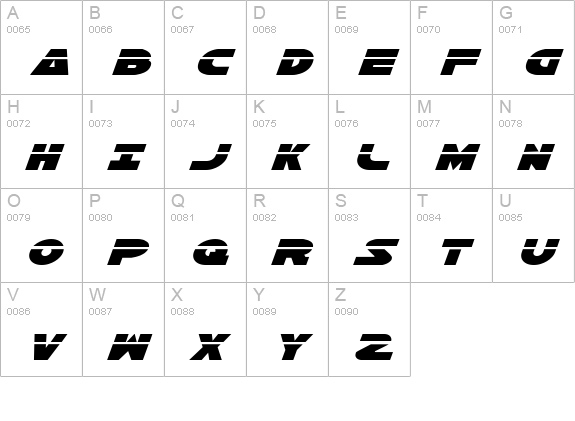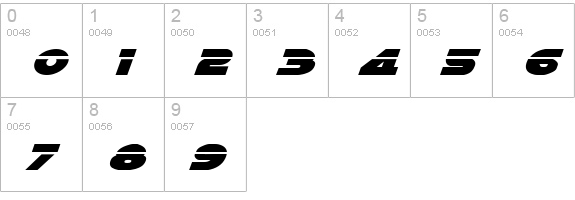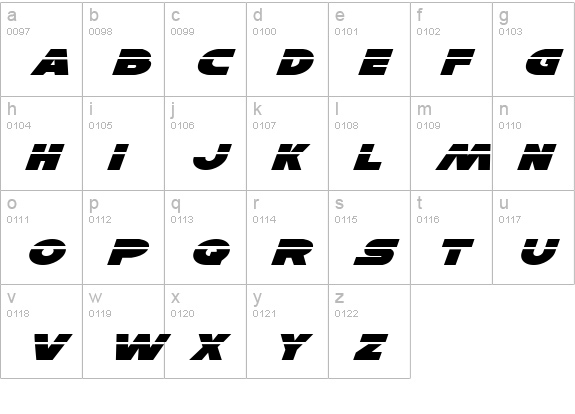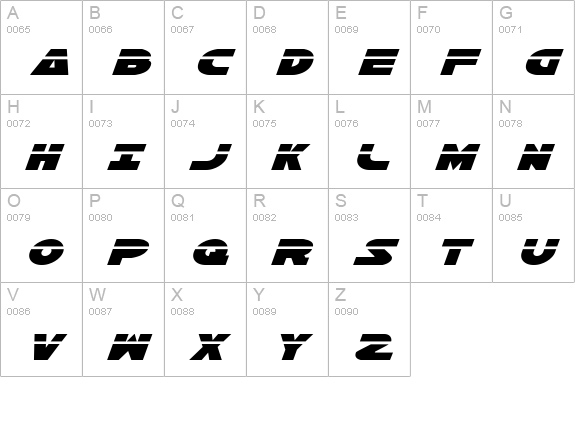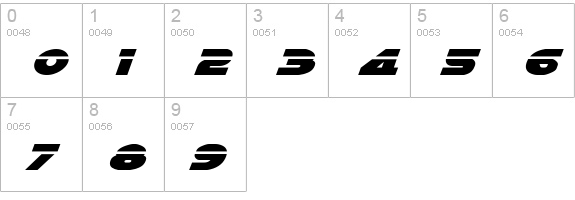
Han Solo Exp Laser Italic Font Details
Han Solo Exp Laser Italic is a distinctive, italic variant in the Han typeface family \xE2\x80\x94 well suited to design and typography projects.
Han Solo Exp Laser Italic font is a bold and futuristic typeface that is perfect for adding an extra touch of adventure and excitement to your designs. With its sleek and stylish design, this font will make your text stand out and catch the eye of any viewer. The Han Solo Exp Laser Italic font is ideal for a wide range of projects, from movie posters and book covers to logos and branding materials. Its unique and edgy look will give your designs a modern and dynamic feel. What sets this font apart is that it is not only visually stunning, but it is also free! That's right, you can freely download the Han Solo Exp Laser Italic font at FontsMarket.com. This means that you can incorporate this font into your designs without worrying about any additional costs. Whether you are a professional designer or a hobbyist, the Han Solo Exp Laser Italic font is a valuable addition to your font library. Its versatility and eye-catching design will surely make your projects stand out from the crowd. So why wait? Go ahead and download the Han Solo Exp Laser Italic font today at FontsMarket.com and let your creativity soar. With this font at your disposal, the possibilities are endless.